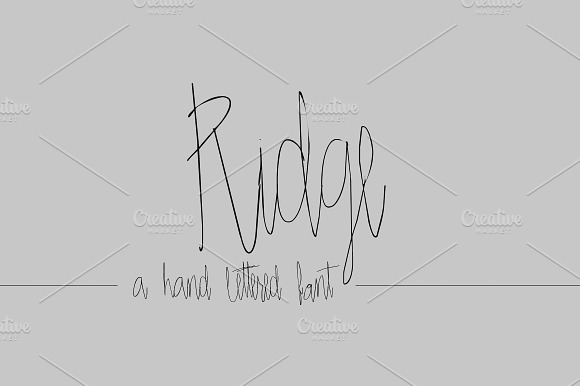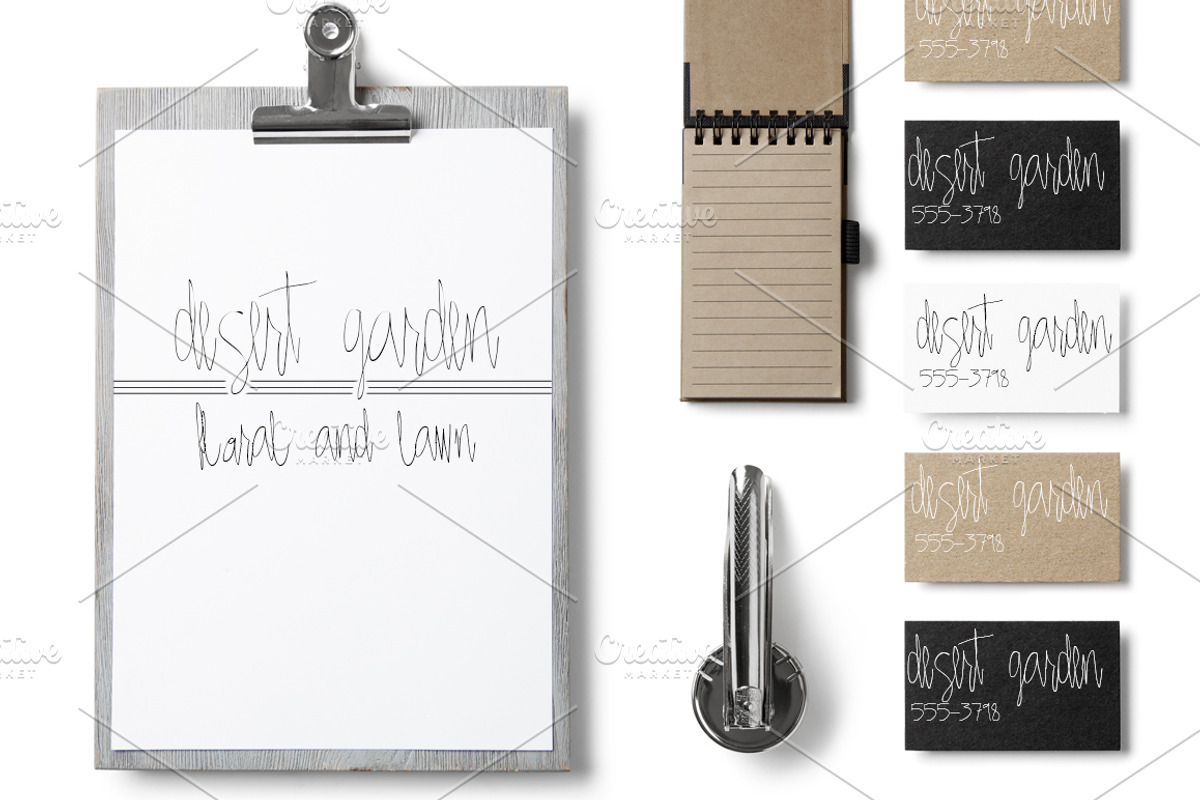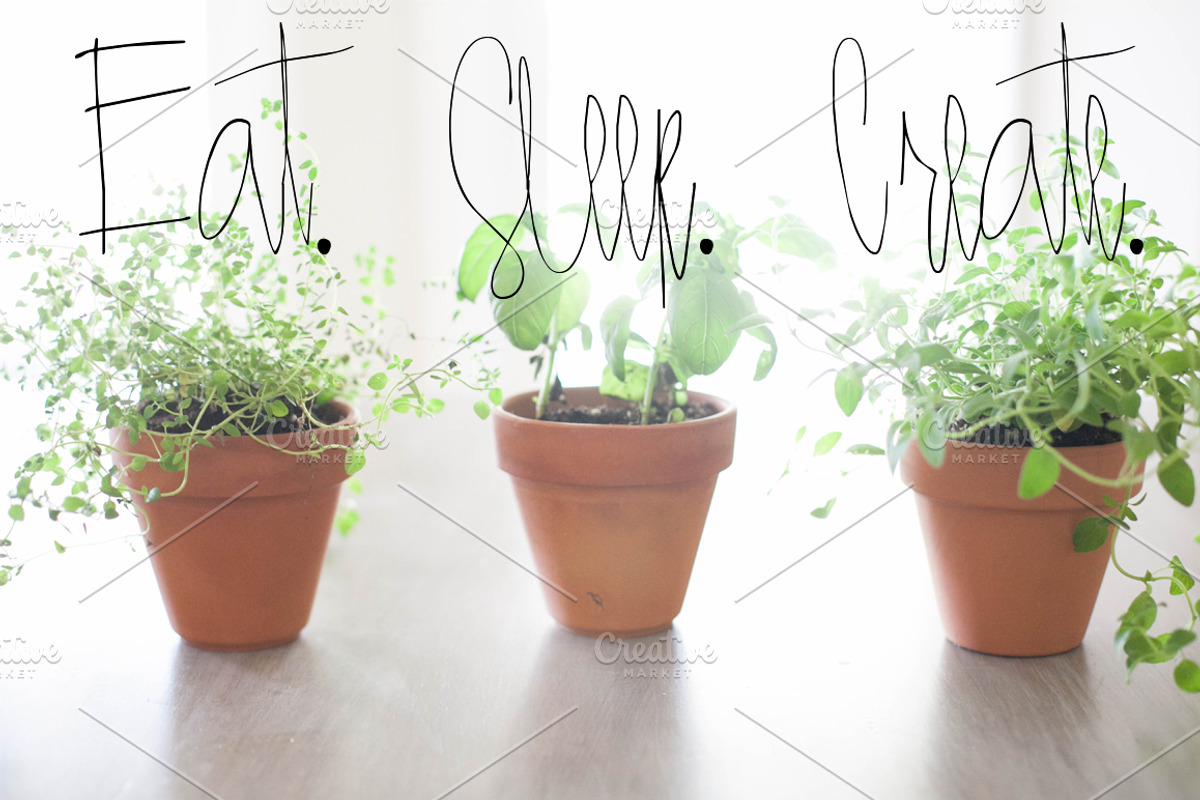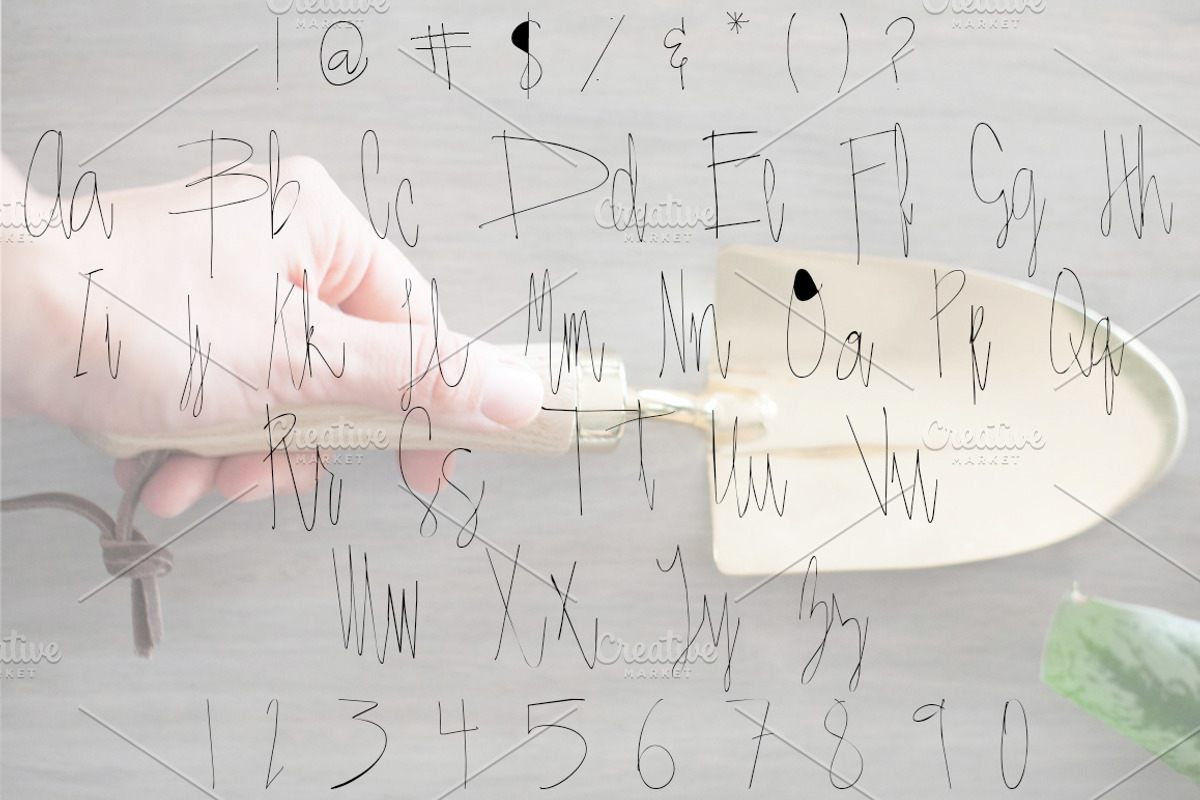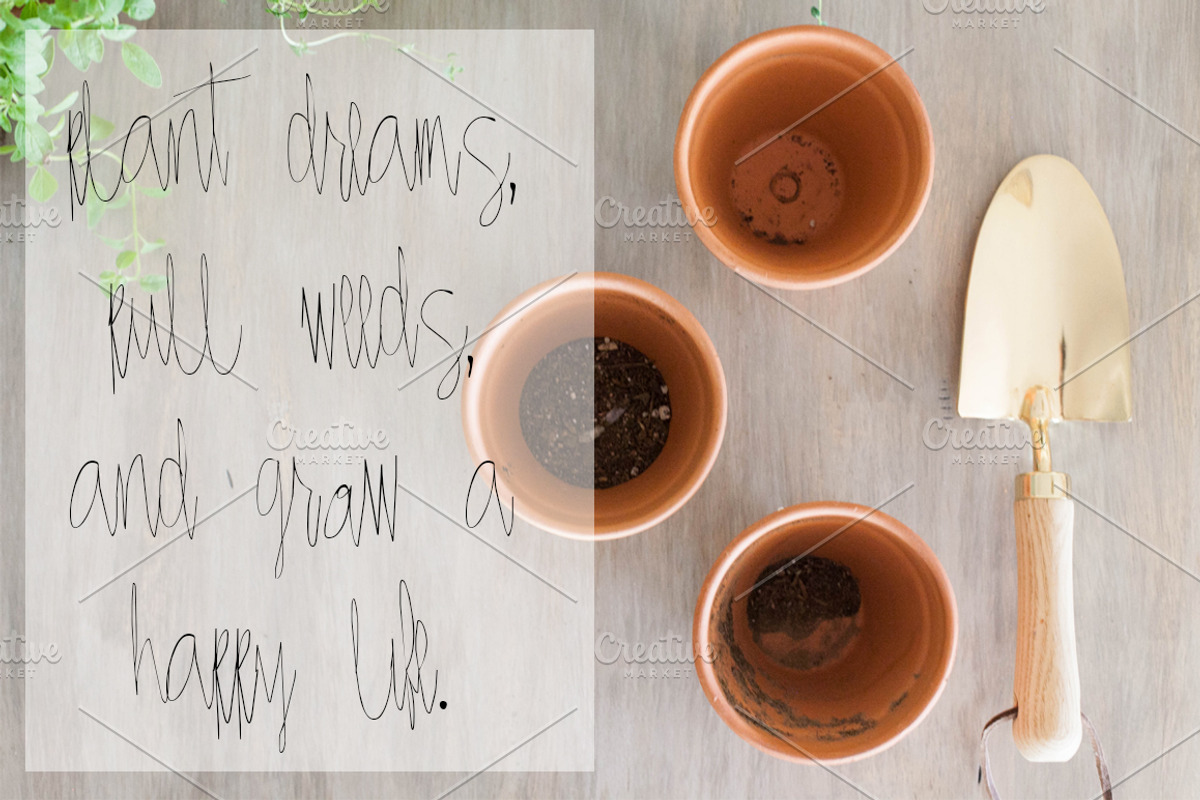
RIDGE Hand Lettered Font
Ridge is a spunky little font with a spirit of carelessness and confidence! Ridge is a funky script font with a unique personality, hand-lettered to an unpredictable perfection. Full alphabet, symbols, and numbers.